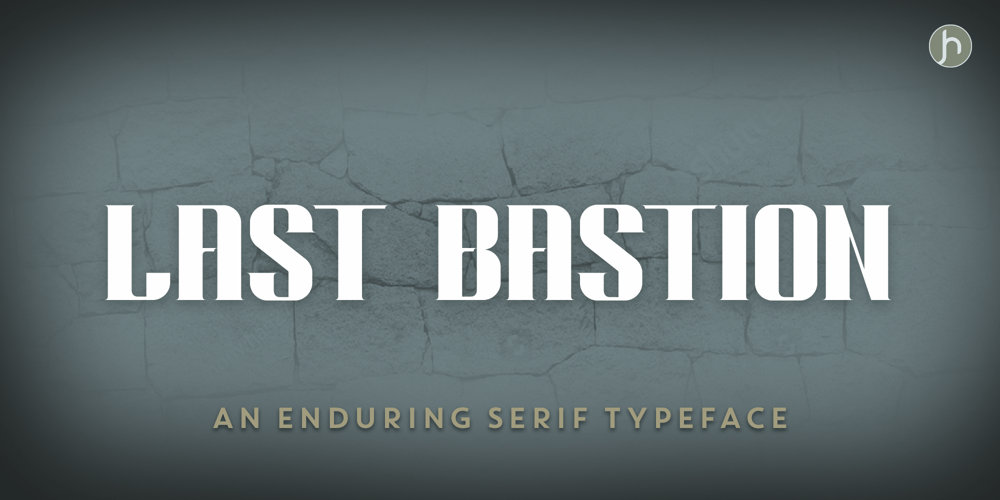
Last Bastion Font Family was designed by Joe Hewitt and published by Joe Hewitt Design. Last Bastion contains 3 styles and family package options. Last Bastion is a strong, resolute serif typeface. The original inspiration came from the idea of an impenetrable medieval fortress that has stood the test of time and defended generations of hardened soldiers. Large stone towers and fortifications are reflected in the font’s bold stems.The sans serif font offers a more modern and clean look, while the Gothic font shows the typeface’s darker side. All three fonts include alternates for all letters and numbers in both caps and small caps.Last Bastion lends itself to branding, billboards, signage and industry to name a few.The glyph set includes all languages covered in Basic Latin, Latin-1 Supplement and Latin Extended-A scripts.